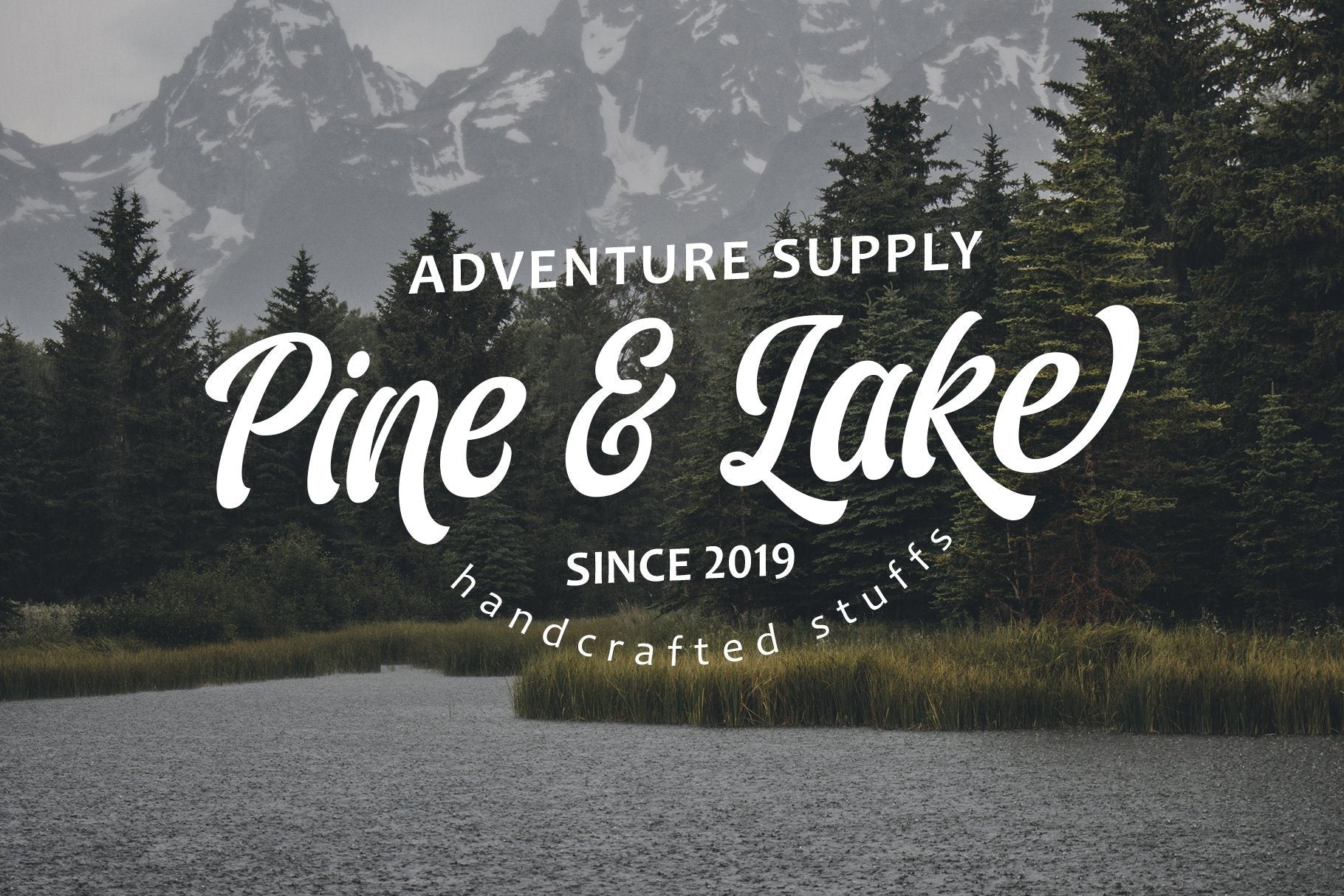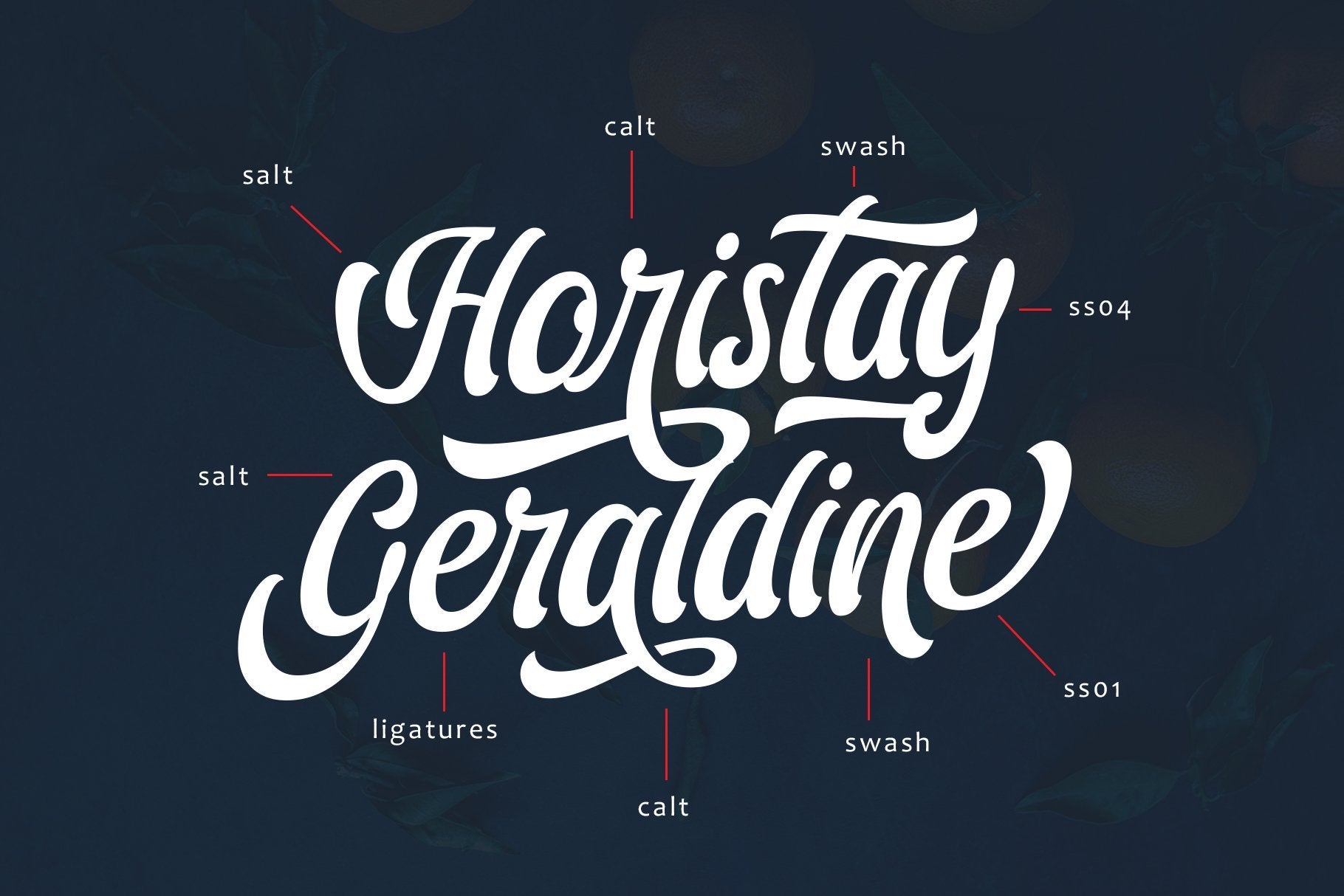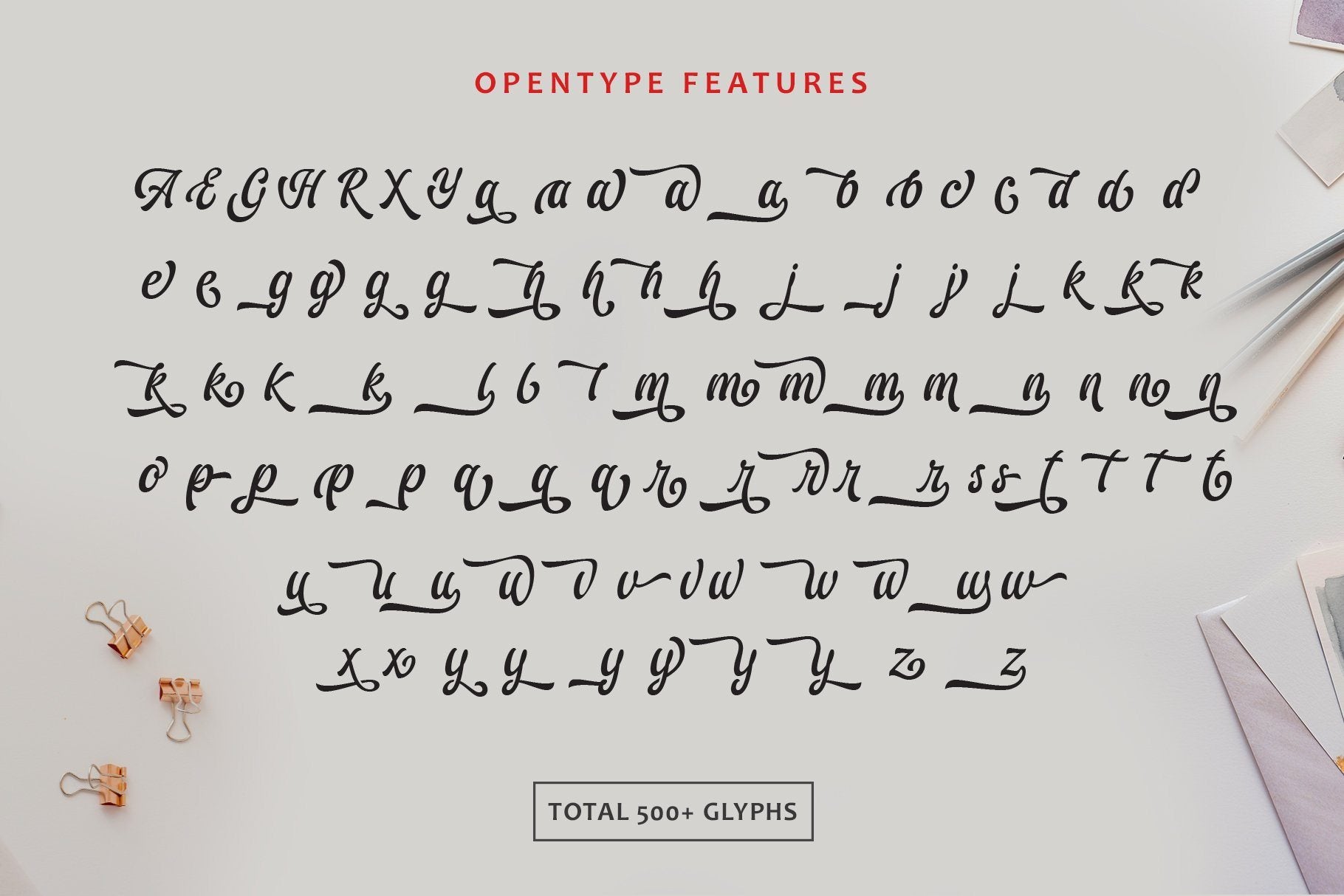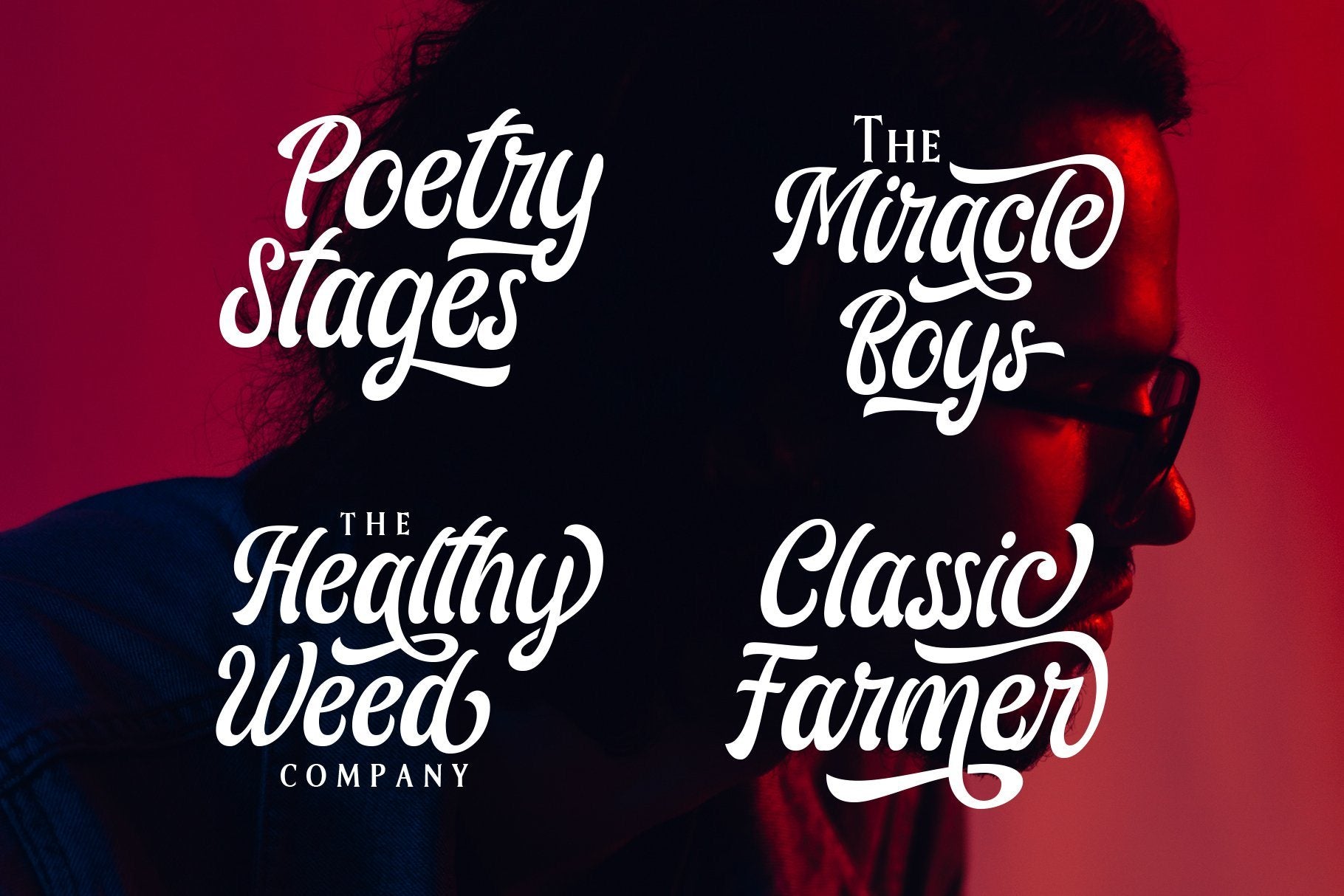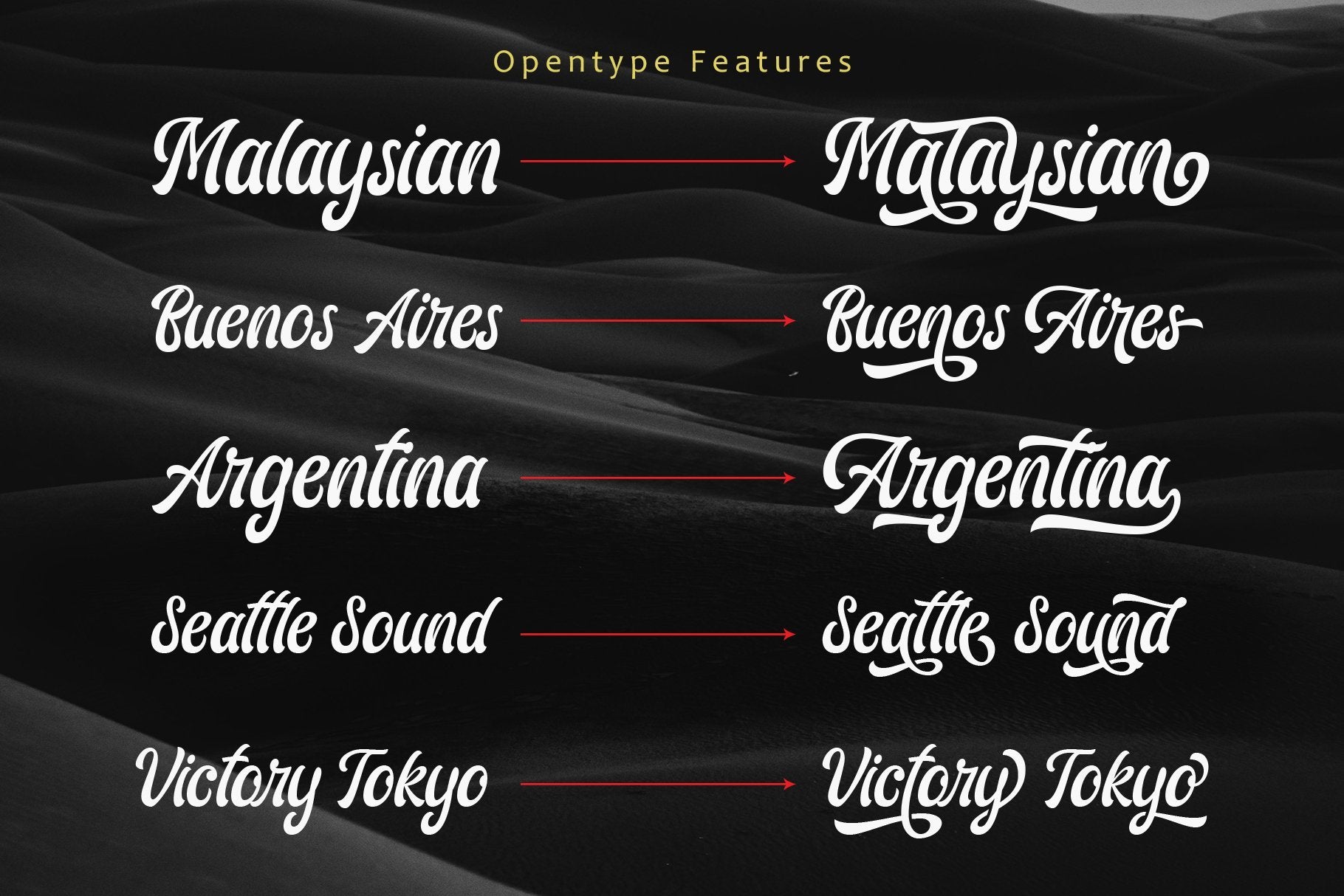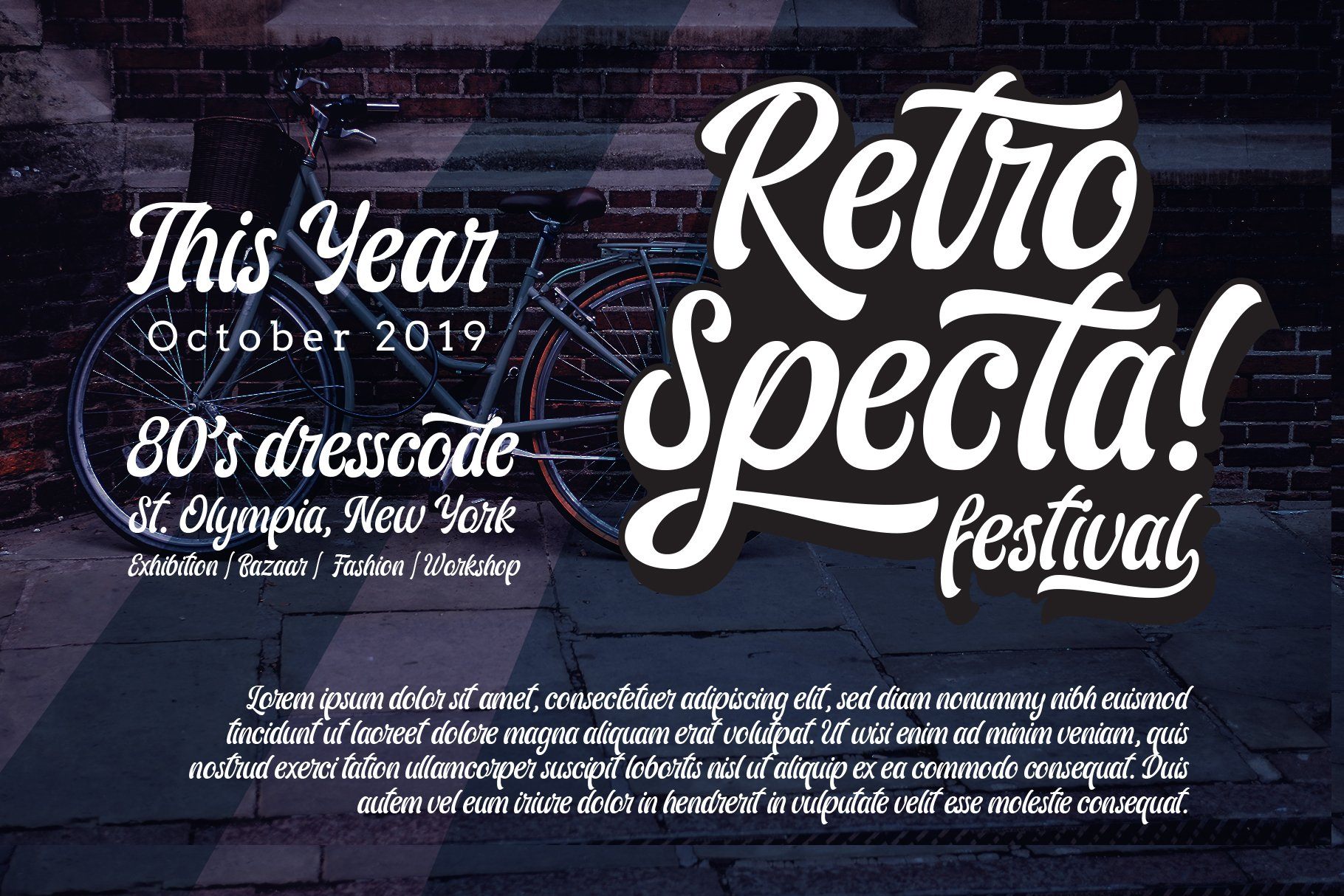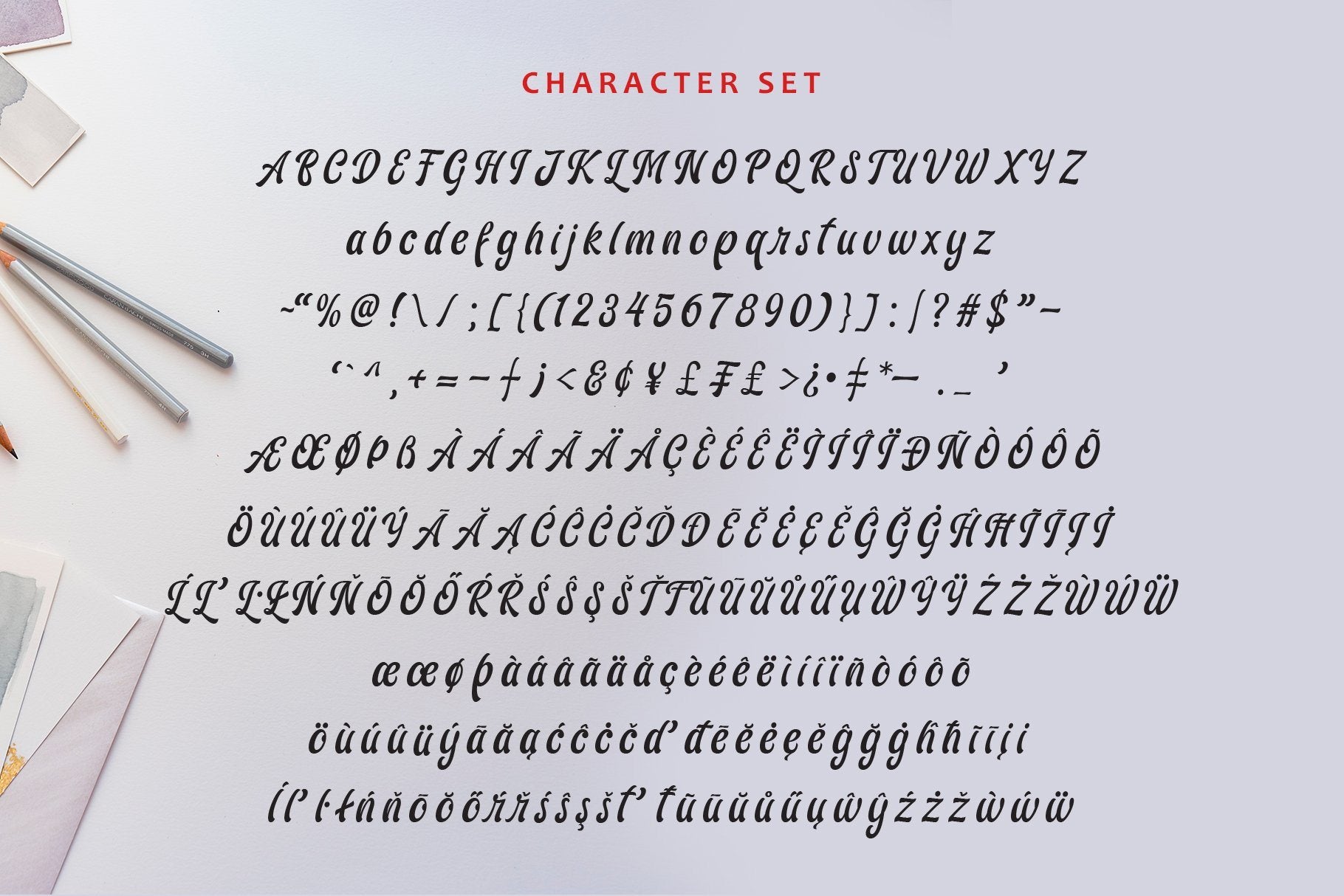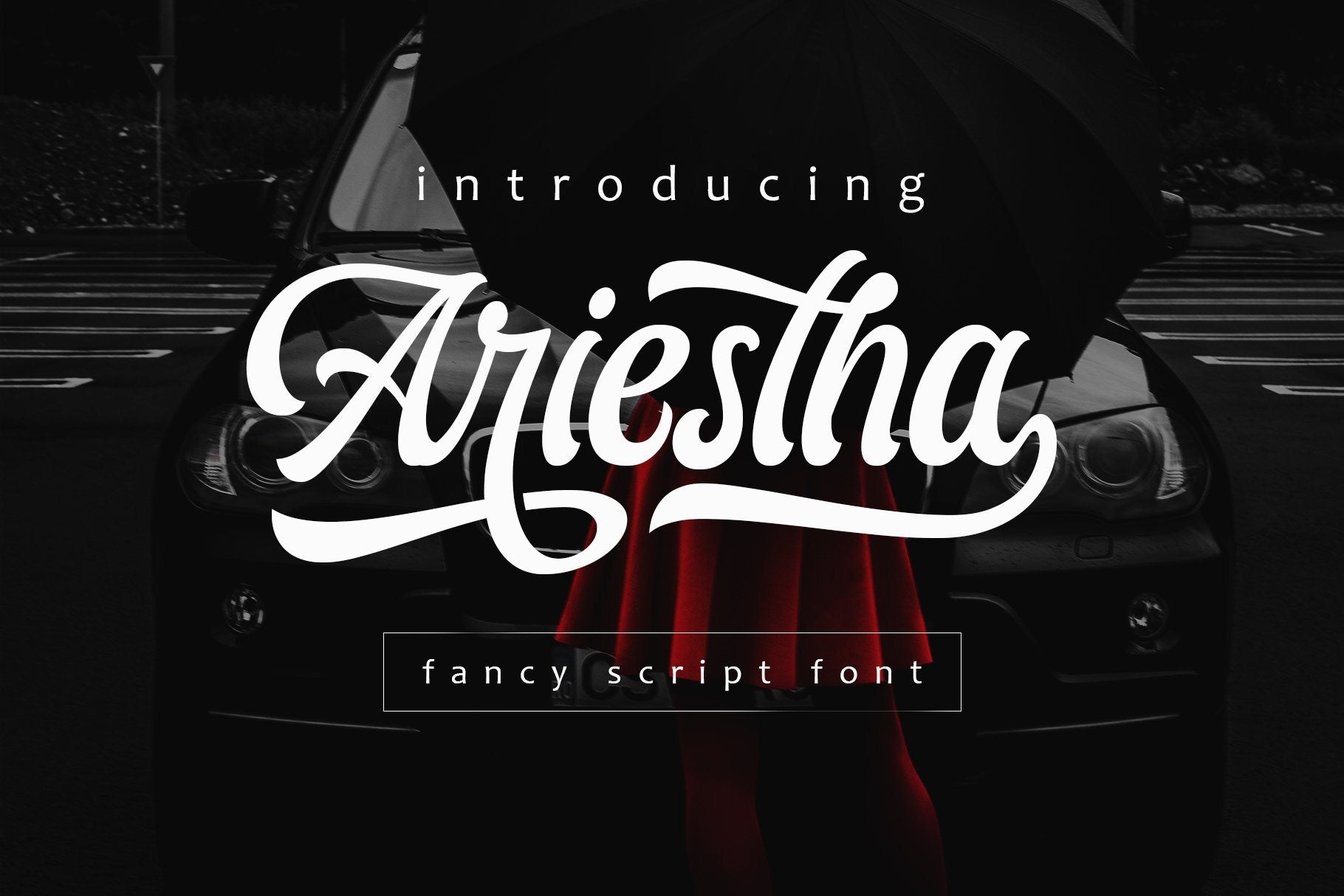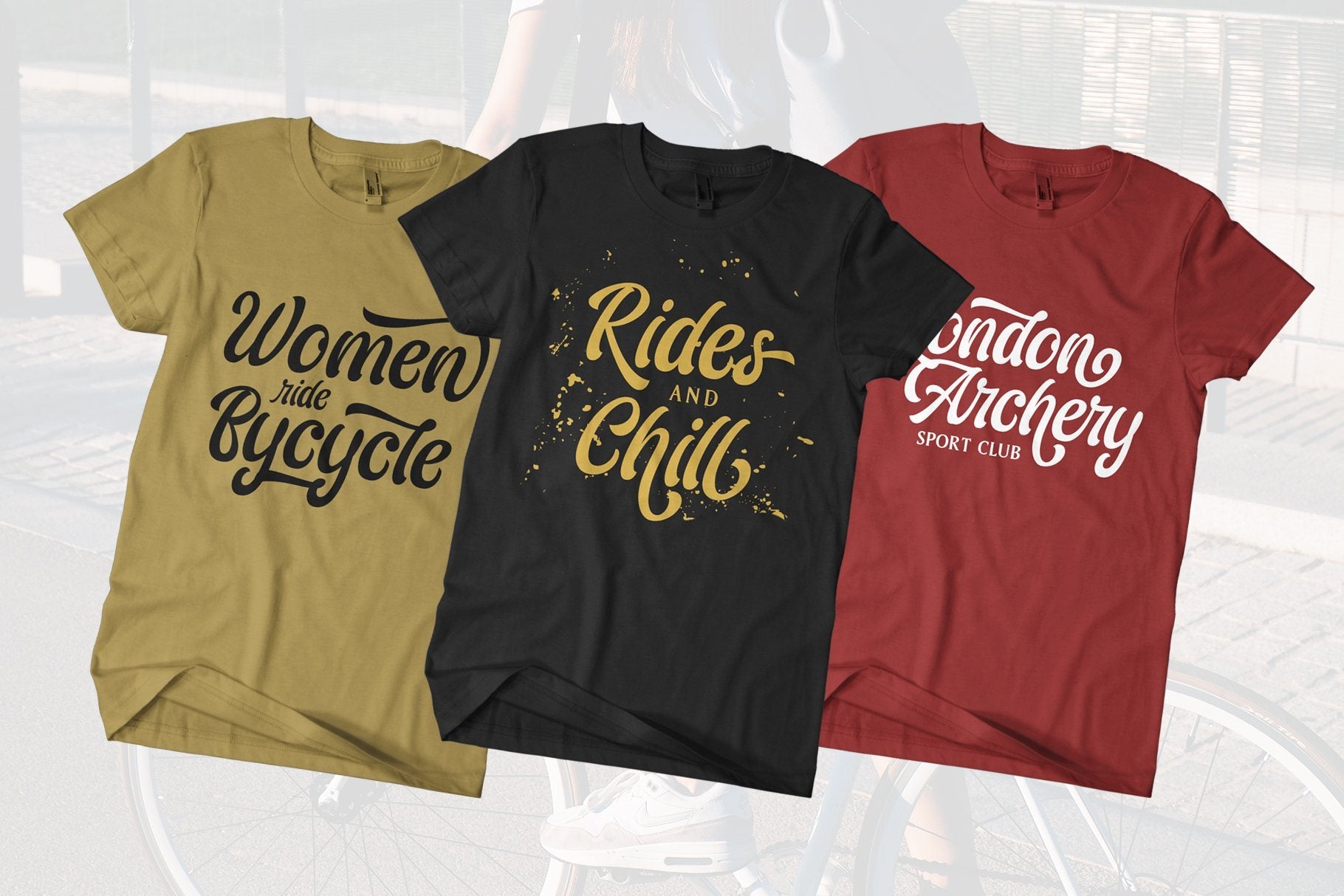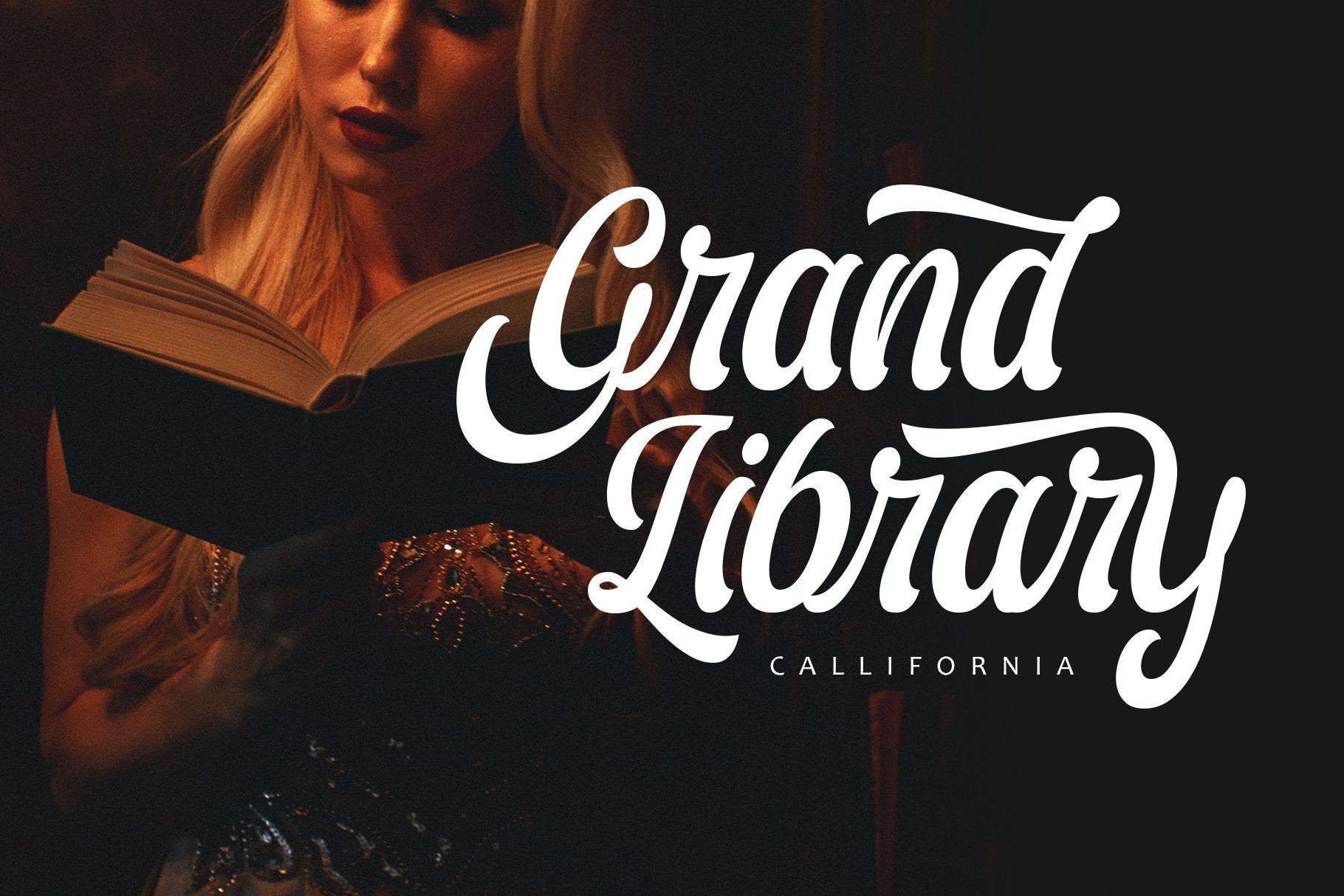
Ariestha Script
About Ariestha Script
Ariestha is a fancy script font, inspired by modern and retro typography. Carefully designed with bold strokes on the bottom of the letters and some playful touch of letters layout that allows you to make neat and flexible typography. Ariesta scripts come with many variations of open-type features which possible to explore more alternative looks in your design process. The open-type features are accessible on Adobe Illustrator, Photoshop, InDesign and etc. Very recommended for your headline in the logotype, sign painting, poster, die-cut craft, branding, storefront and merchandise design! Ariestha Script has over 500+ Glyphs with 26 multilingual accents. Also with standard punctuation, uppercase and lowercase. There are stylistic alternates, contextual alternates, ligatures, stylistic set 01 – 04. Great design asset for your project.